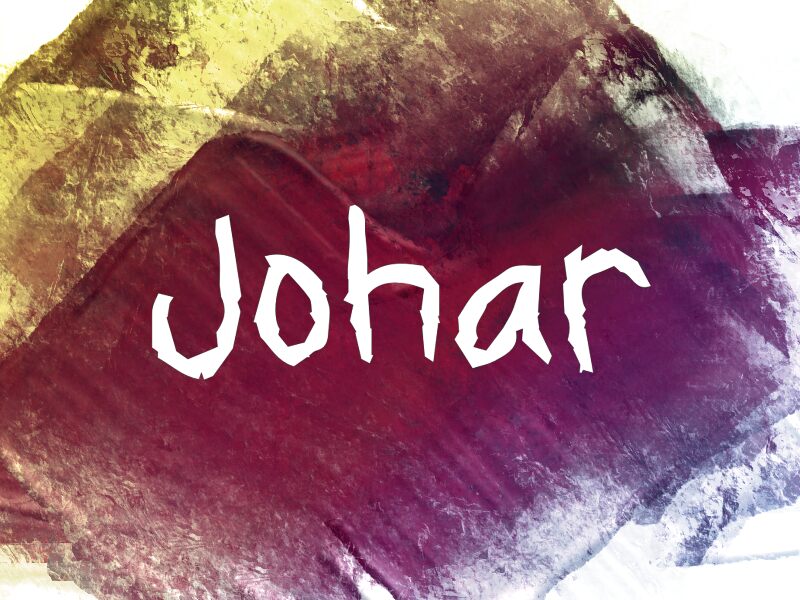
Johar
Johar font by wep is a free trash script typeface with a torn, hand-cut energy. Its letters look ripped from duct tape and cardboard—jagged edges, sudden bends, and inky clumps that feel raw and improvised. The rhythm stays legible while the texture does the shouting, giving you that gritty, street-found look without turning into chaos.
This free font shines on horror posters, punk flyers, zines, garage-band logos, skate graphics, Halloween merch, and gritty YouTube thumbnails. Using Johar, you get loud attitude at headline sizes and a scuffed, DIY voice at mid weights. Pair with a simple condensed sans to ground the noise and let Johar carry the attitude.